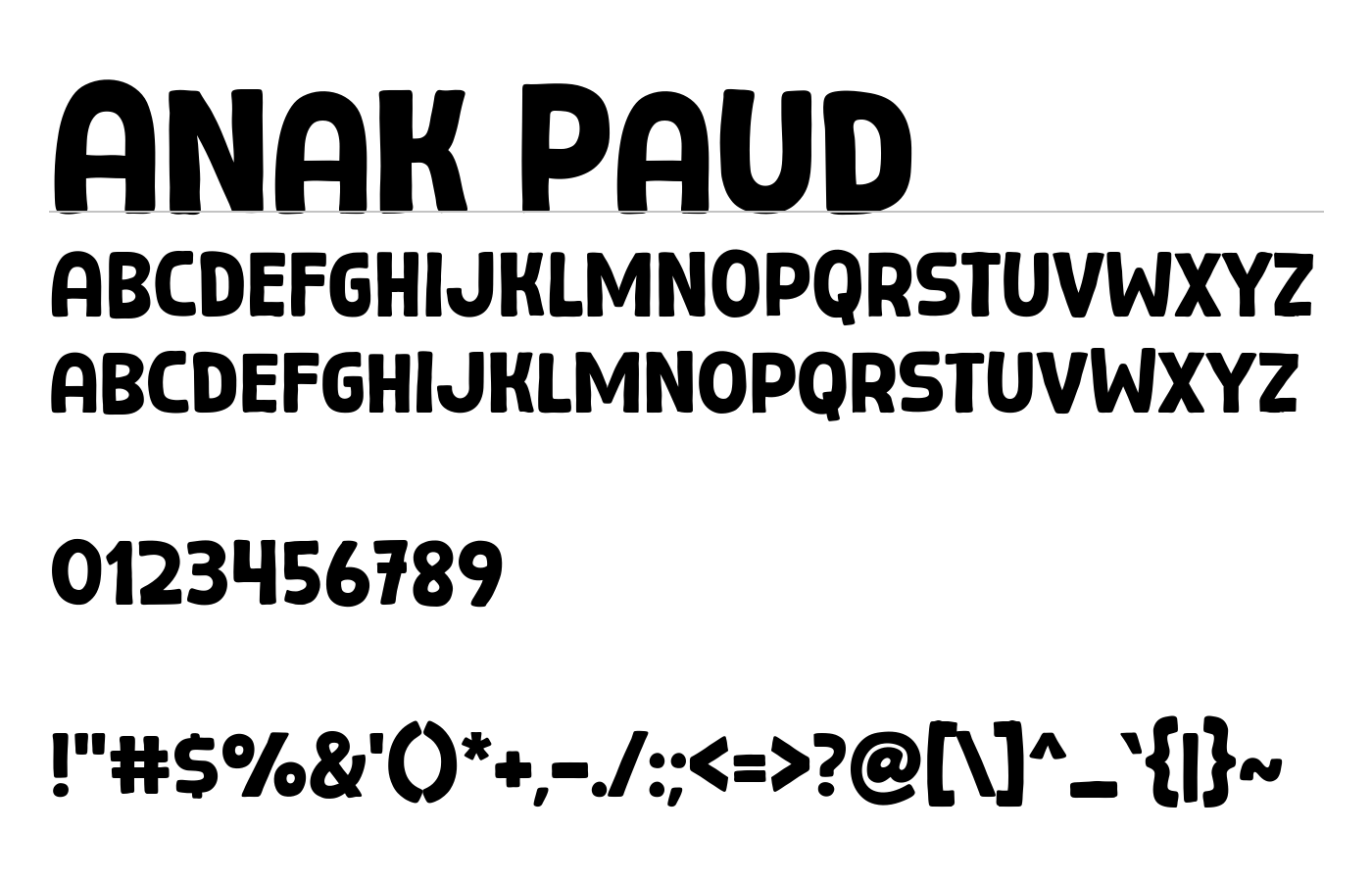
Anak Paud is a playful and bold sans serif font with a friendly, hand-drawn feel. Its rounded, irregular shapes and thick strokes create an approachable, casual vibe perfect for children's books, playful branding, and fun headlines. This font works well wherever a warm, informal touch is needed to engage and delight audiences.
Anak Paud Font
About Anak Paud Font
| Font family | Anak Paud Font |